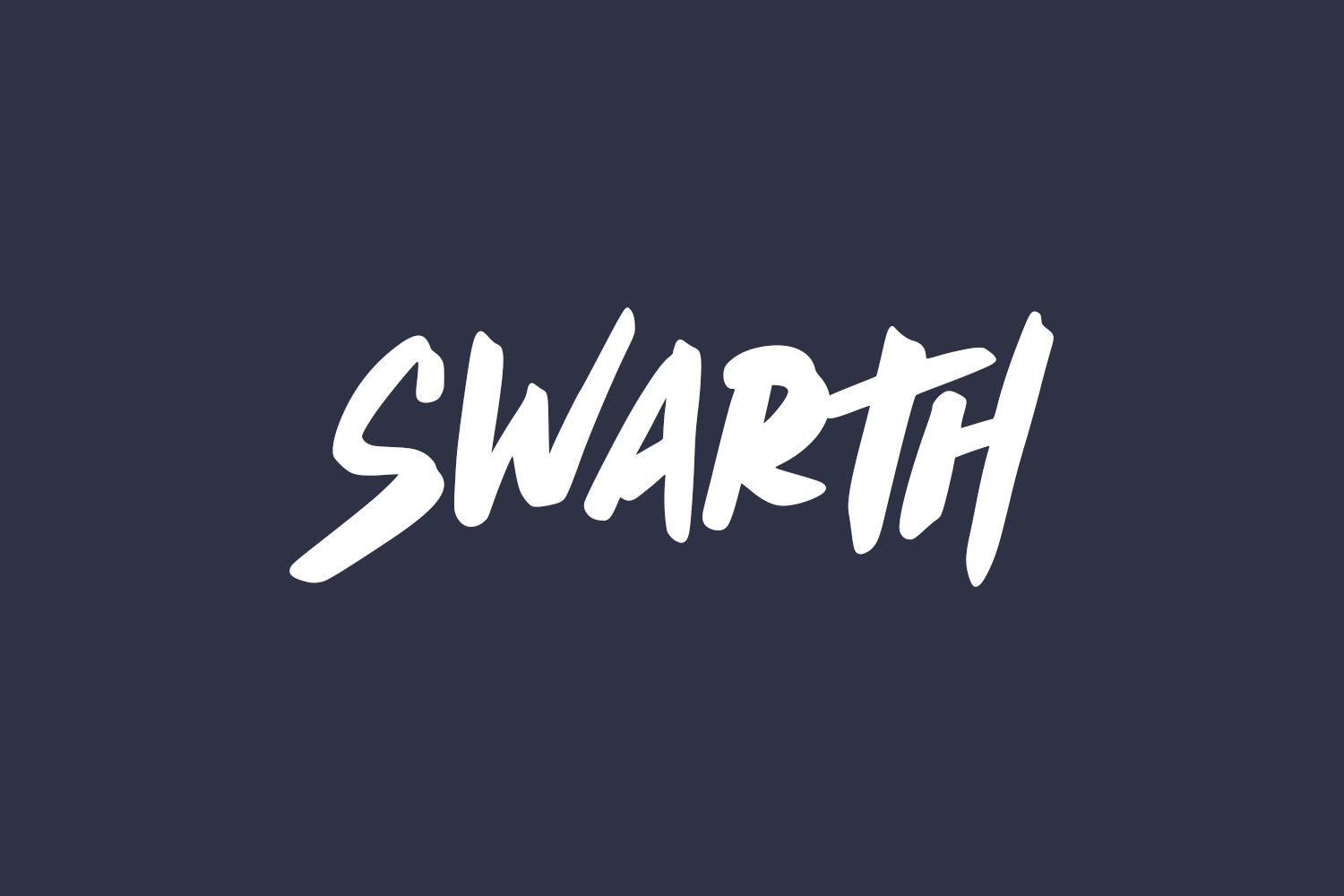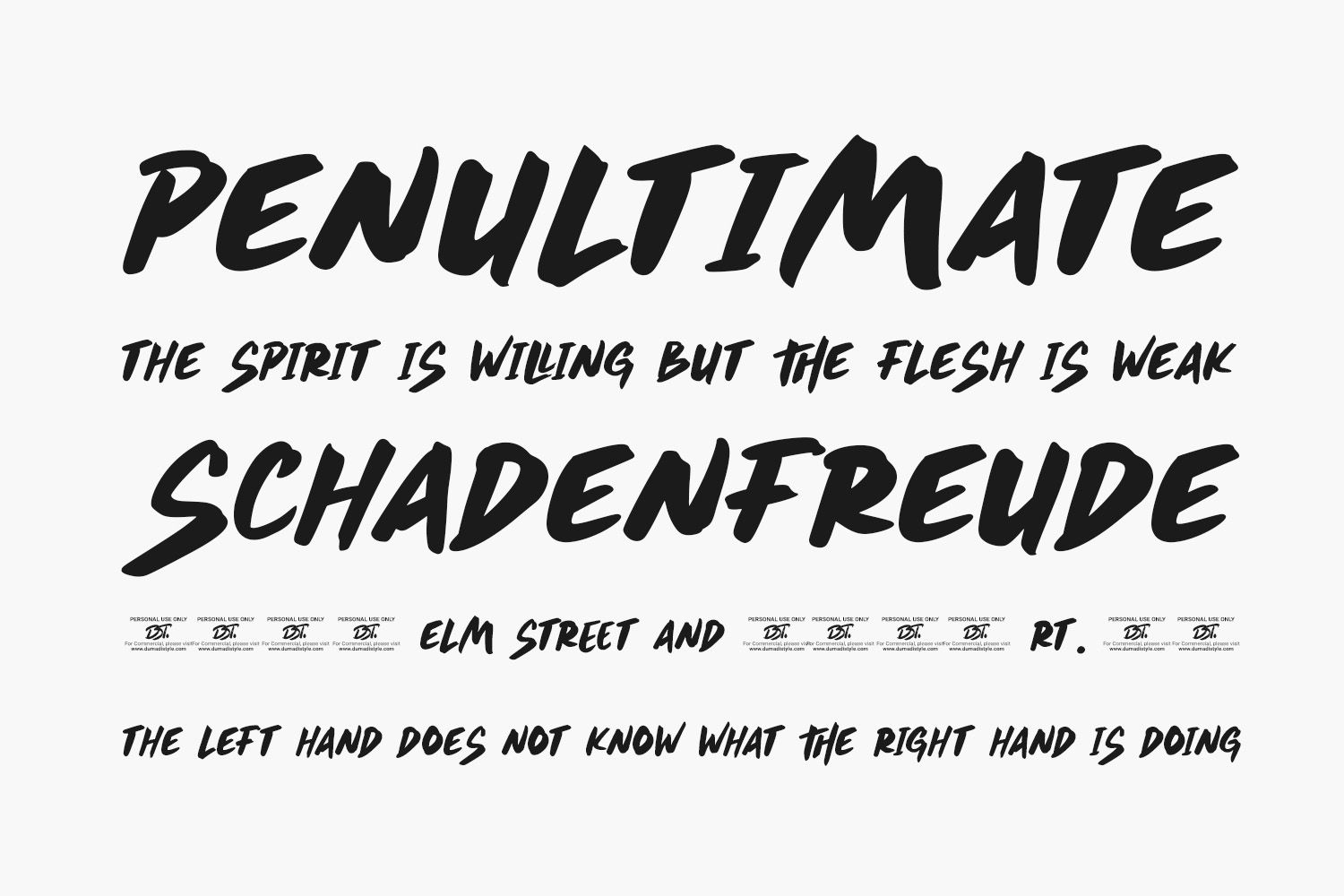
Swarth Free Font presents itself as a chic and contemporary handbrush display font. Infuse a touch of excitement and modernity into your designs by incorporating this vibrant and invigorating font. Witness its transformative effect as it breathes life into your creations, adding a dynamic and lively dimension to your visual projects. Swarth Free Font is a demo and free for personal use only. Please purchase the full version for commercial use.
Designed by DumadiStyle